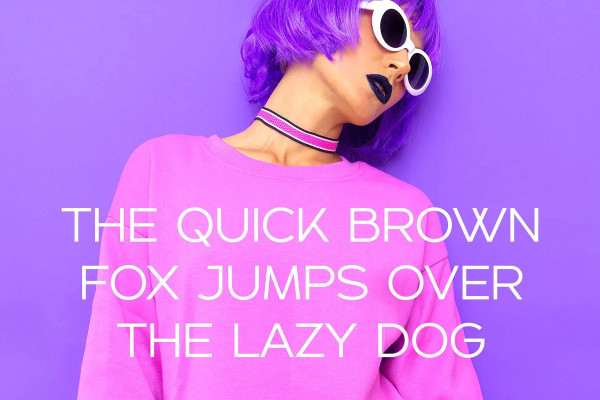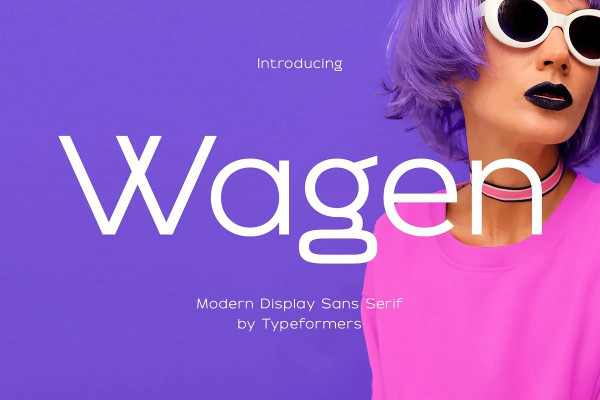
Wagen Font
Wagen Font – Modern Display Sans Serif. Wagen is a modern and simple font, best used as a display for headings, logos, branding, magazines, product packaging and invitations.